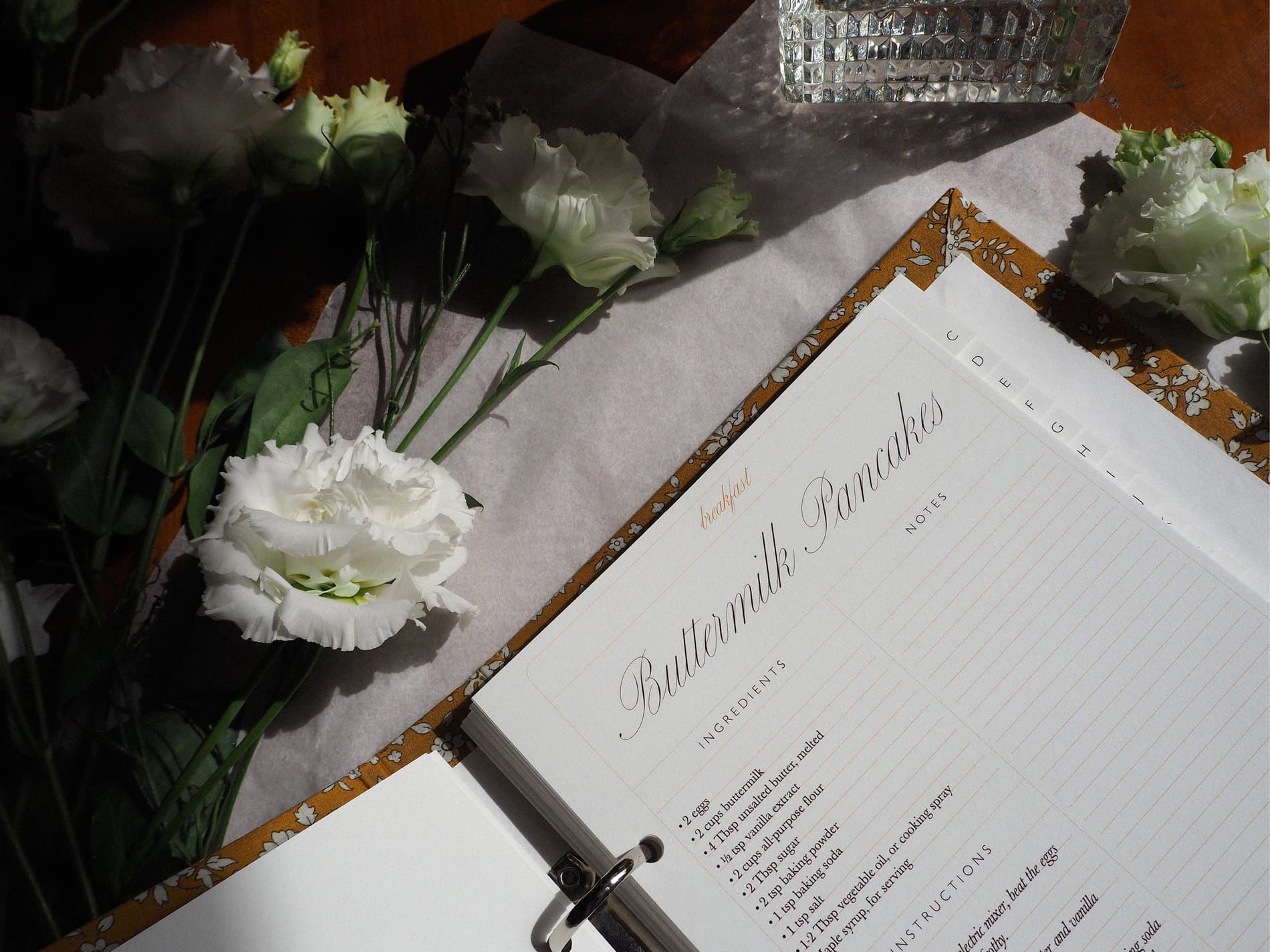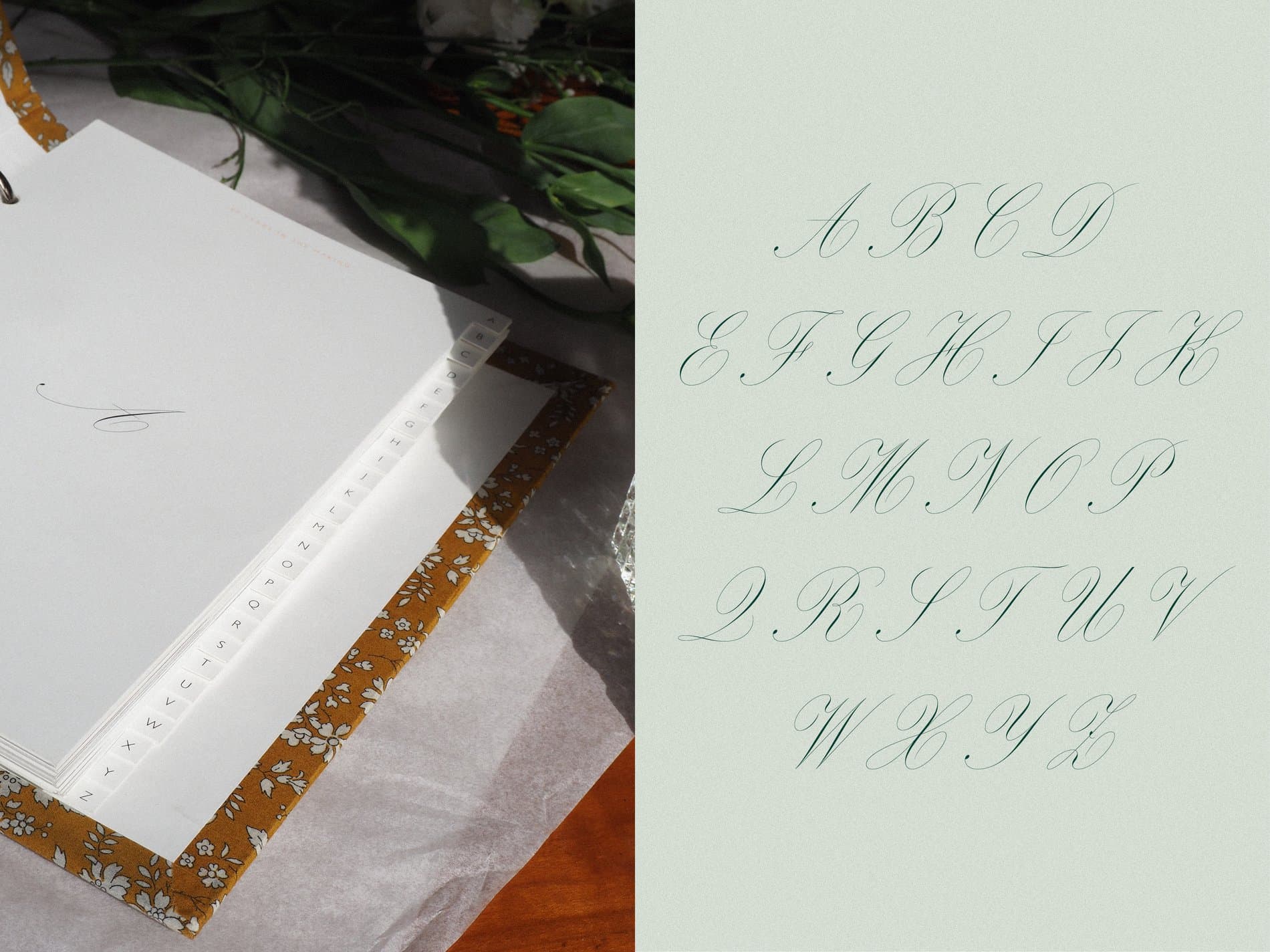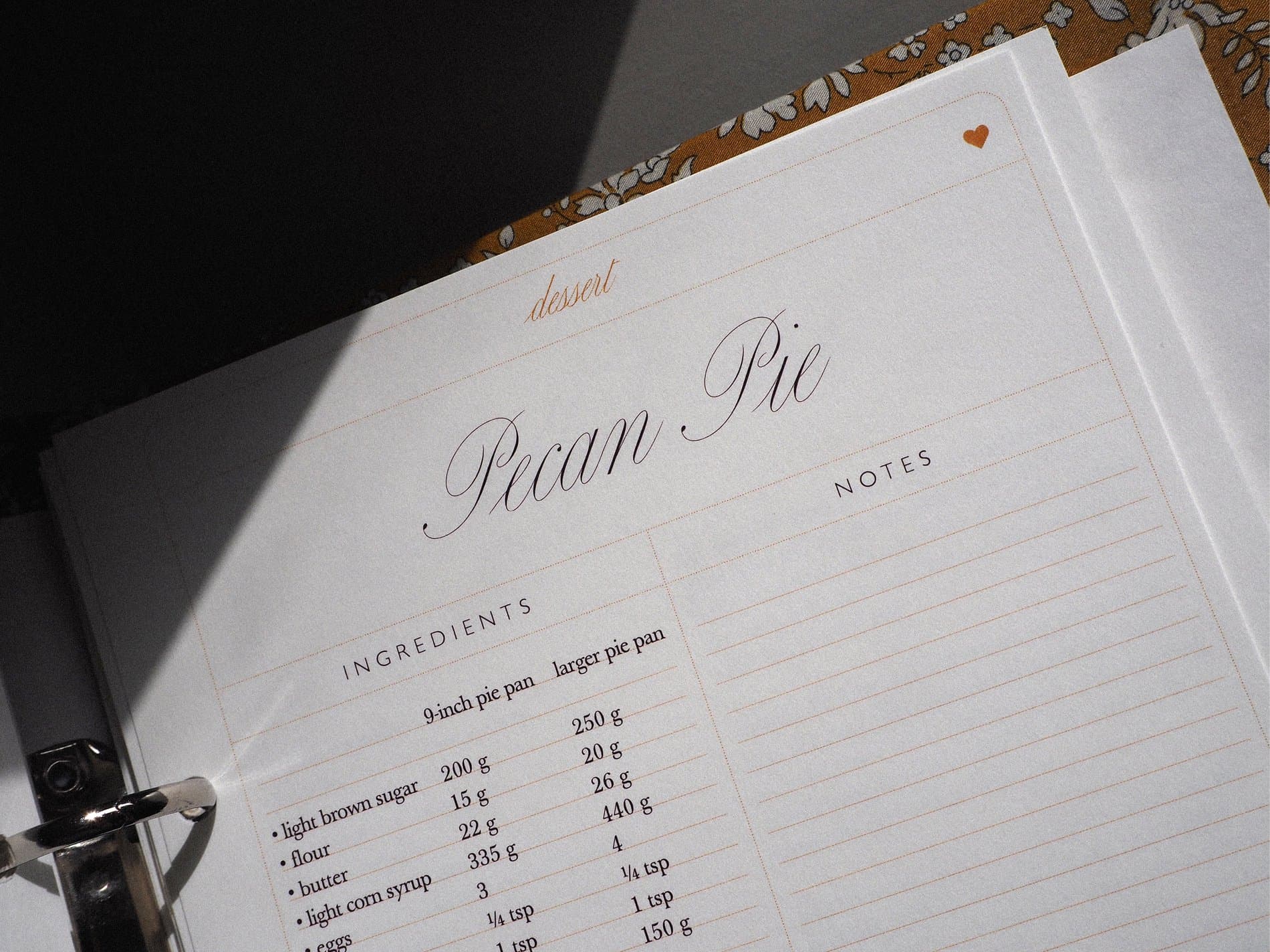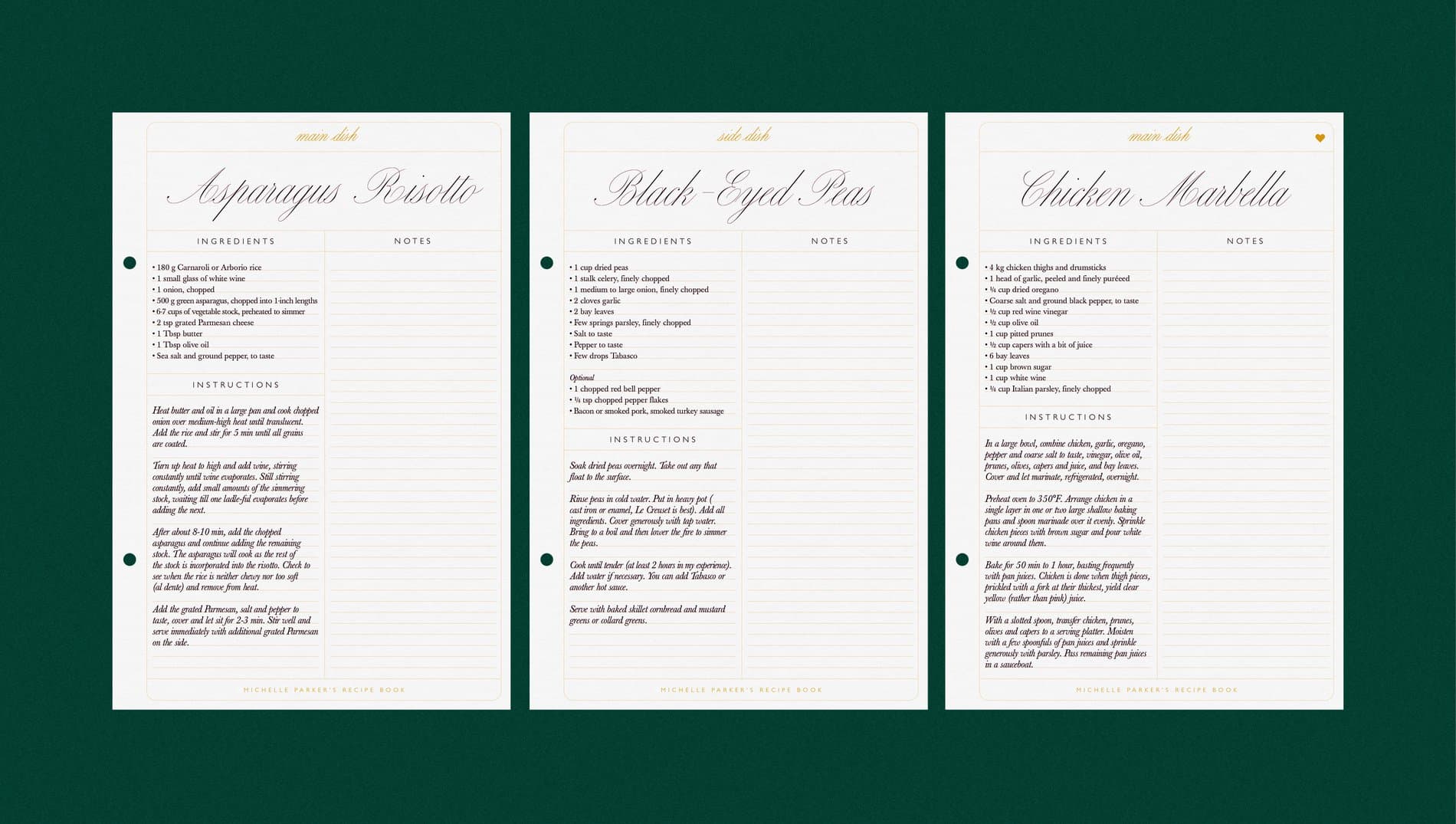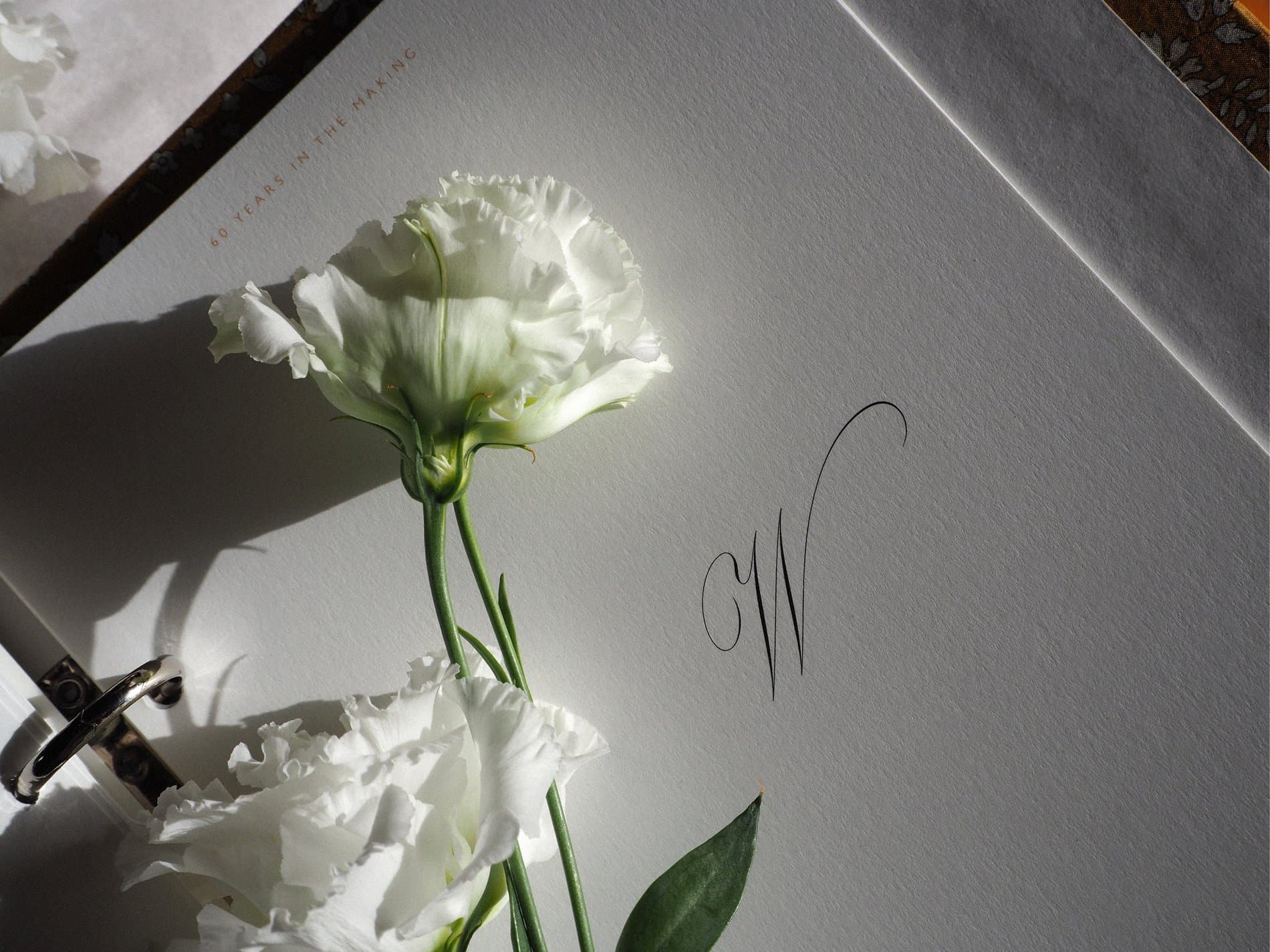
Personal fonts-in-use projects hold a special place in our hearts, especially when they're made so beautifully and imbued with such love. It's also pleasant--something like a breath of fresh air, followed by a deep sigh--because a book project like this lives outside the bounds of our commercial world, lending a particular purity to the fonts on its pages: layers of meaning condense, and the eyes can gaze upon the work within a simpler, richer context.
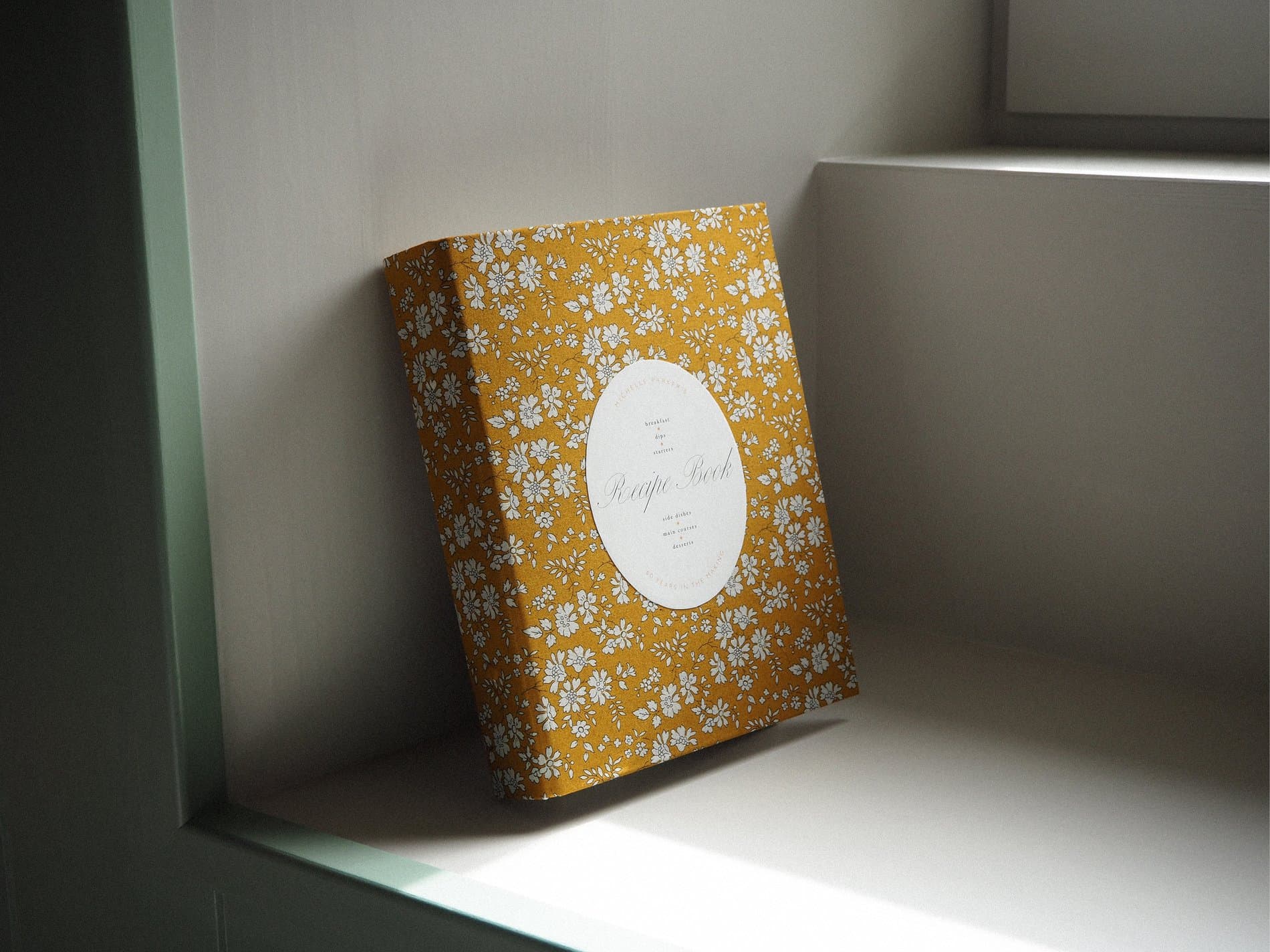
We recently came across the work of SarahBourge, a designer based in Paris, who hand-made this recipe book for her mother's 60th birthday. Carta Nueva, designed by My-LanThuong, is the primary display font used throughout the book. "I started this project because I wanted to create something special for my mom. She is an excellent cook and has tons of recipe books, some torn and stained, and dozens of printed recipes that don’t have a home. I wanted her to have a book of our family favorites."
Carta Nueva is a typeface that rewards sustained attention. Its forms reflect My-Lan's precise and detail-oriented eye. "I hadn't planned on using a script font for the titles since I don’t usually have specific typefaces in mind when I start projects. I did, however, want to use a font with a vintage feel to it, but not too old-fashioned. I thought Carta Nueva had that special look to it, majestic without being too traditional. I fell in love with how thin it is. The other fonts I used are Gill Sans and Baskerville. I wanted simple fonts, very legible that wouldn’t take away from the main typeface. I use a lot of serif fonts so usually I try to pair them with more simple sans serifs to have several levels of hierarchy. "
As a studio that collectively loves all forms of quality printed matter, we were further endeared to this project because Sarah handmade the book, including its clothbound cover. "I work a lot on my computer, so I always welcome an opportunity to make things by hand. I've always loved editorial design, and I’m always excited to hold new books in my hands: seeing and feeling the physical objects is always a satisfying experience. (That’s why I try to take pictures of my projects and not use mockups because the slightest difference in a shade of white paper can change the whole feel of a book.) I chose to have a special fabric for the cover and assembled it by hand."
It makes sense that Carta Nueva features so prominently in this project. A recipe book requires the reader to return to it, time and time again, to pore over its pages. This sustained attention turns reading into an act of devotion. It's a reminder that one of the many functions of letterforms is to hold, and to also share, our rituals and memories.